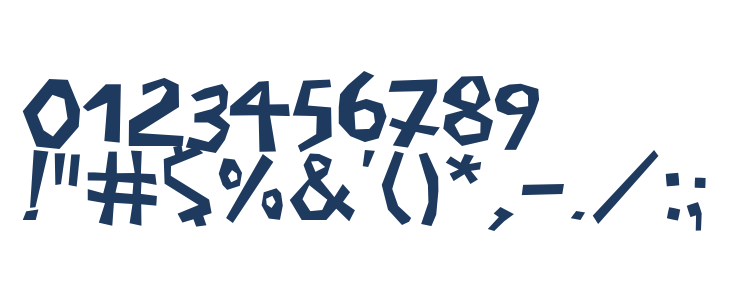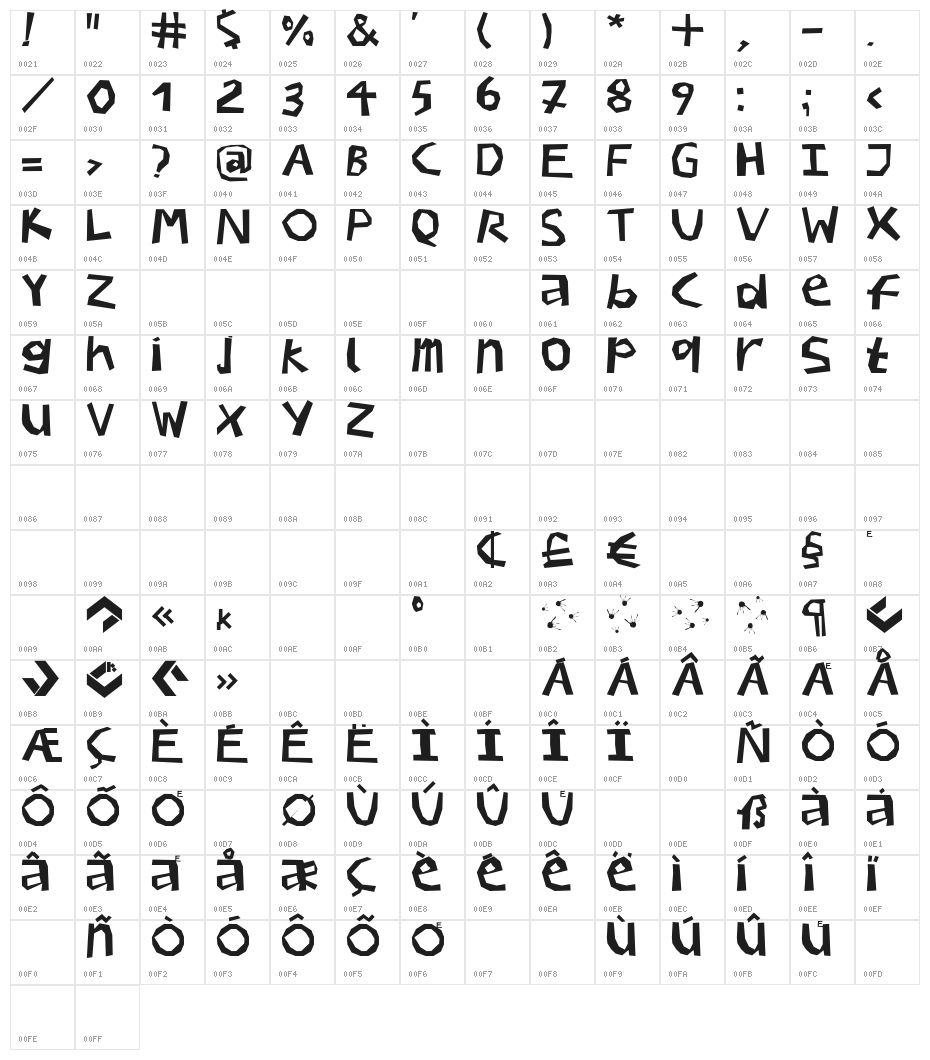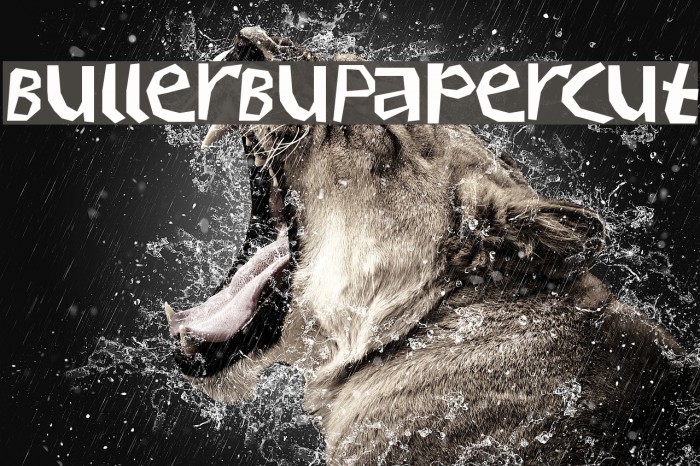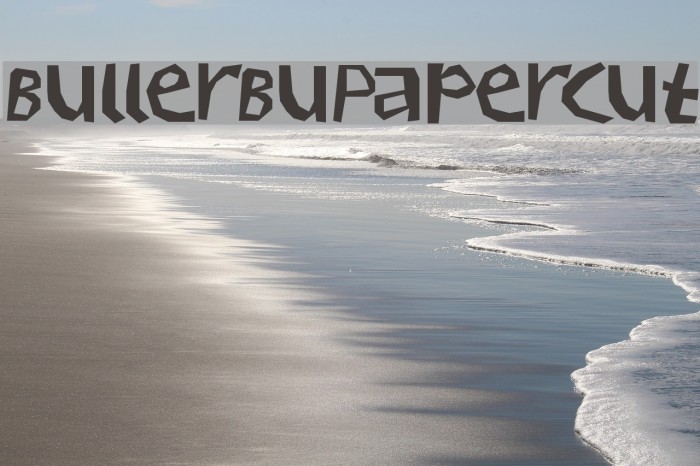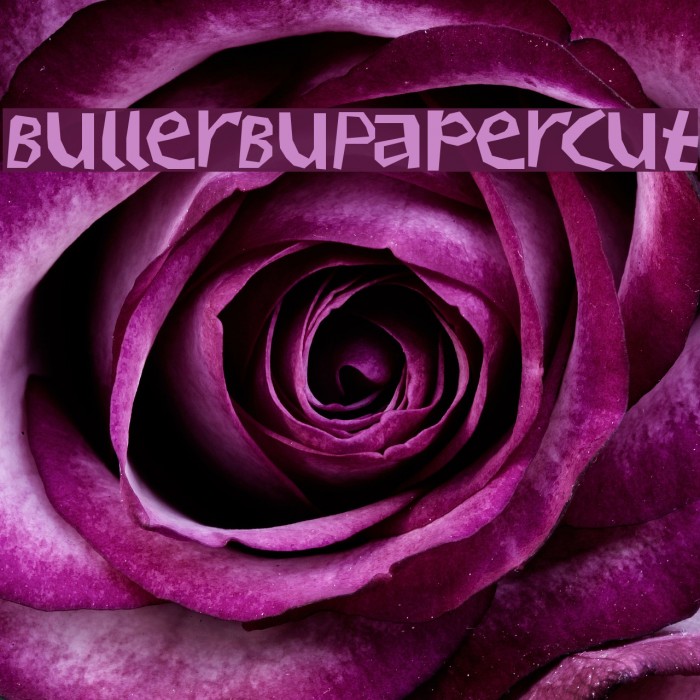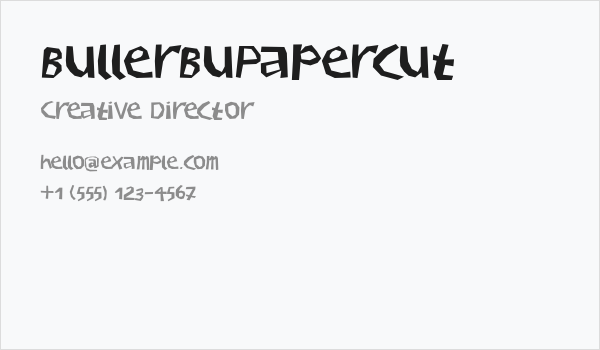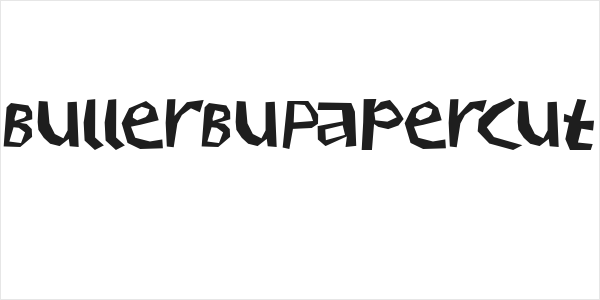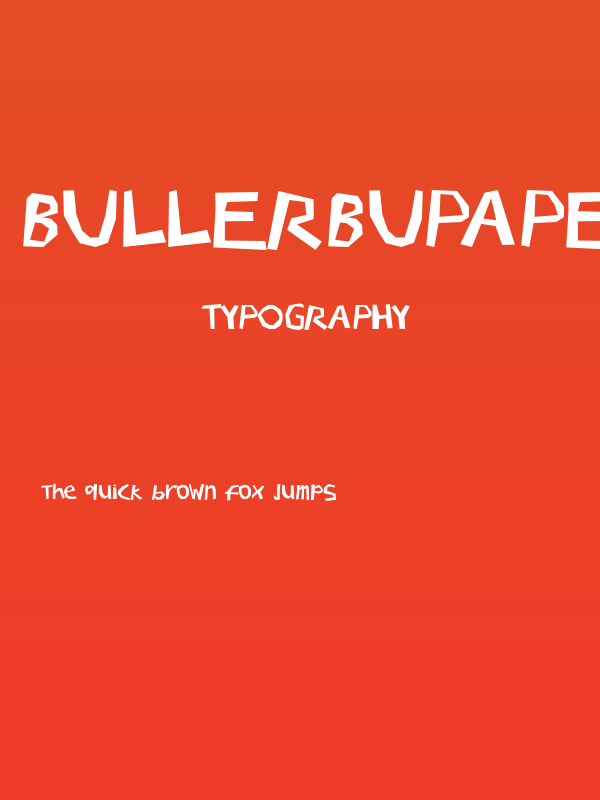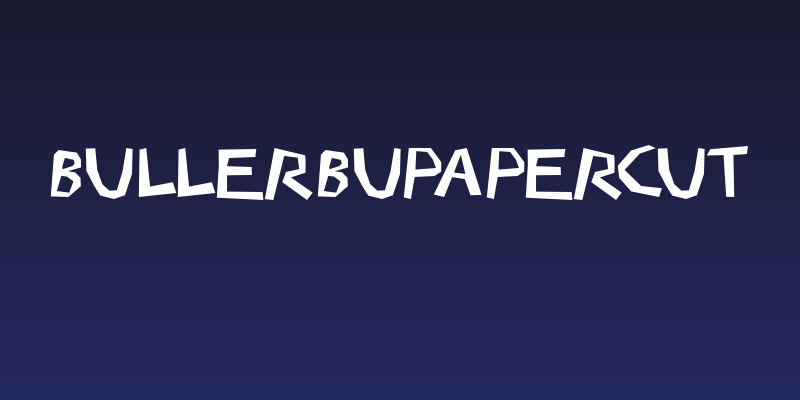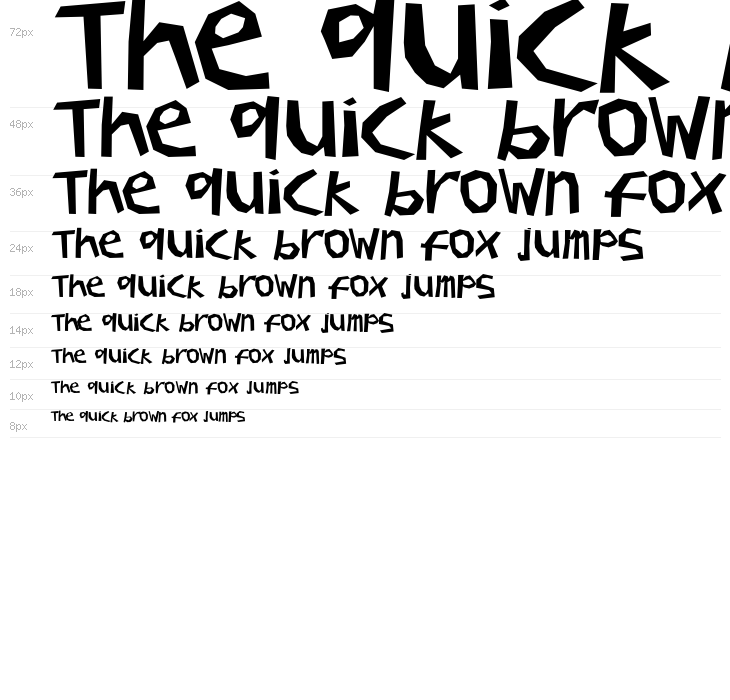
BullerBuPapercut Font
BullerBuPapercut Description
This font features a playful and irregular design, reminiscent of cut-out paper shapes. Each character has a unique, hand-crafted appearance with uneven edges and varying angles, creating a whimsical and artistic feel. The uppercase and lowercase letters maintain a consistent style, while the numbers and special characters complement the overall aesthetic. The font's distinctiveness makes it stand out, offering a creative and informal vibe suitable for artistic projects.
| Overall Style | Artistic, Whimsical |
| Use Case | Headlines, Posters, Creative Branding |
| Proposed Projects | Ideal for children's book covers, creative posters, and playful branding projects. |